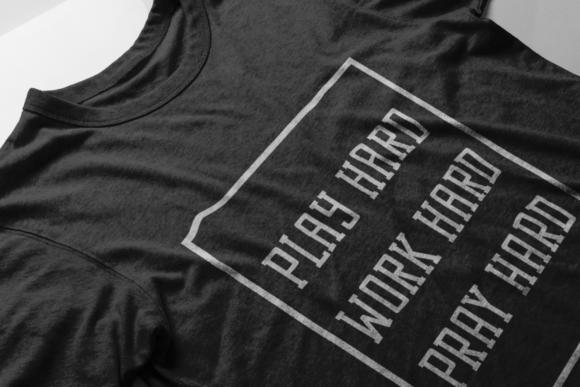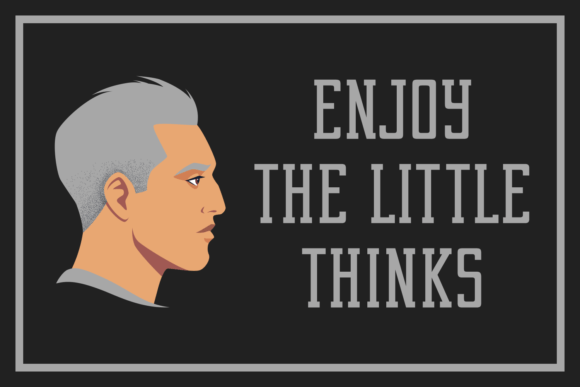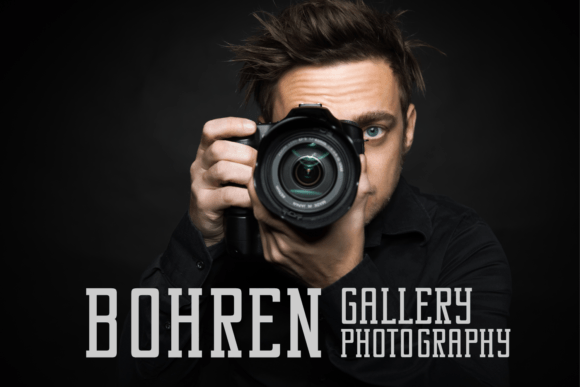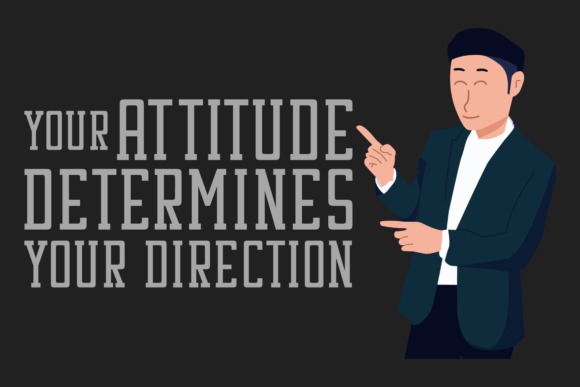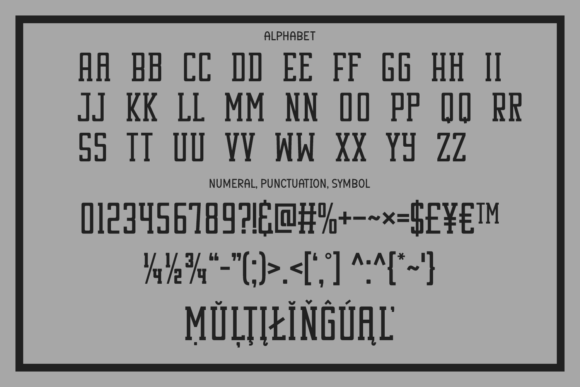
Introducing Bohren Font: A Striking Slab Serif for Bold Designs
In the world of typography, fonts play a crucial role in conveying the tone and personality of a brand or design. With so many fonts available, it can be challenging to find the perfect one that exudes strength, modernity, and confidence. That’s where Bohren Font comes in – a striking slab serif font that is sure to make a statement in your designs.
The Characteristics of Bohren Font
Bohren Font is a bold and sturdy slab serif font that is designed to convey a sense of strength and modernity. Its letterforms are carefully crafted to be robust and resilient, making it an excellent choice for designers who want to create a lasting impression. The font’s slab serif design gives it a distinctive look that is both classic and contemporary, allowing it to fit seamlessly into a wide range of design contexts.
Why Choose Bohren Font?
So, what makes Bohren Font an excellent choice for designers and crafters? Here are a few reasons why:
- Versatility: Bohren Font is an incredibly versatile font that can be used in a variety of design contexts, from branding and advertising to packaging and digital media.
- Legibility: The font’s bold and sturdy letterforms make it highly legible, even at small sizes, ensuring that your message is always clear and concise.
- Uniqueness: Bohren Font’s distinctive slab serif design sets it apart from other fonts, giving your designs a unique and memorable look.
- Modernity: The font’s modern design aesthetic makes it perfect for designers who want to create a fresh and contemporary look.
Using Bohren Font in Your Designs
Bohren Font can be used in a wide range of design applications, including:
- Branding: Use Bohren Font to create a bold and confident brand identity that makes a lasting impression.
- Advertising: The font’s bold and sturdy letterforms make it perfect for creating eye-catching headlines and titles.
- Packaging: Use Bohren Font to create striking packaging designs that stand out on store shelves.
- Digital Media: The font’s legibility and modern design aesthetic make it perfect for use in digital media, such as websites, social media, and mobile apps.
Tips for Getting the Most Out of Bohren Font
Here are a few tips for getting the most out of Bohren Font:
- Experiment with different sizes: Bohren Font is highly legible at a range of sizes, so experiment with different sizes to find the one that works best for your design.
- Use it with contrasting fonts: Pair Bohren Font with contrasting fonts to create visual interest and hierarchy in your designs.
- Play with color: Bohren Font looks great in a range of colors, so don’t be afraid to experiment with different color schemes.
In conclusion, Bohren Font is a striking slab serif font that exudes strength, modernity, and confidence. Its bold and sturdy letterforms make it an excellent choice for designers who want to create a lasting impression. With its versatility, legibility, uniqueness, and modernity, Bohren Font is an excellent addition to any typographic toolkit.